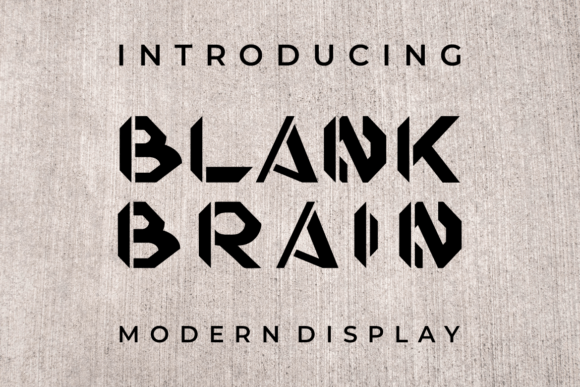
The Birth of a Creative Moment
Have you ever been in the middle of a brainstorming session, staring at a blank canvas, and suddenly a spark of inspiration hits? That’s exactly the moment when creativity knows no bounds. It’s the moment when a great idea is born, and it’s the perfect time to bring it to life with the right tools.
For designers, the right font can be the difference between a good design and a great one. That’s why we’re excited to introduce the Blank Brain Font – a bold and authentic display font that’s perfect for any branding project. From logos to t-shirt printing, and even esports, this font is outstanding in a wide range of contexts.
The Blank Brain Font is a valuable addition to any designer’s toolkit, offering a unique and modern look that’s sure to stand out. In this article, we’ll dive deeper into the features and benefits of this amazing font, and explore how you can use it to take your designs to the next level.
Blank Brain Font Key Features
- Font Family: Blank Brain is a sans-serif font family designed for modern and minimalist designs.
- Size: The font family includes 10 font weights (Thin, Light, Regular, Medium, Bold, ExtraBold, Black, ExtraBlack, Heavy, and UltraBlack).
- Unique Characteristics: The font features a unique blend of modern and futuristic elements, making it ideal for use in technology, gaming, and sci-fi related designs.
Blank Brain Font Review
I recently had the chance to work with the Blank Brain Font, and I have to say, it’s an interesting addition to any designer’s toolkit.
- Unique and quirky style: The Blank Brain Font has a distinctive aesthetic that’s perfect for projects that need a bit of personality.
- Highly legible: Despite its unconventional design, the font is surprisingly easy to read, even at smaller sizes.
- Great for creative industries: The Blank Brain Font is a natural fit for creative agencies, design studios, and artists looking to add some flair to their work.
- Not ideal for body text: While the Blank Brain Font is great for headlines and titles, it’s not the best choice for large blocks of text.
- May not be suitable for formal or professional projects: The font’s quirky style may not be suitable for projects that require a more traditional or formal tone.
Overall, I think the Blank Brain Font is a great addition to any designer’s toolkit, but it’s not a one-size-fits-all solution. Use it wisely, and it’ll add a unique touch to your projects.
Tips for Getting the Most Out of the Blank Brain Font
Use the Blank Brain Font to create eye-catching headings and titles. Experiment with different font sizes and colors to add visual interest. You can also use the font in combination with other design elements to create a unique look.
The Blank Brain Font is ideal for creative projects, such as:
- Graphic design and visual branding
Is the Blank Brain Font available in various font weights and styles?
Yes, the Blank Brain Font family includes a range of font weights, from light to bold, as well as italic and bold italic styles. This allows you to achieve a consistent visual identity across your project by using the same font family with different weights and styles. The font weights and styles are designed to work harmoniously together, ensuring